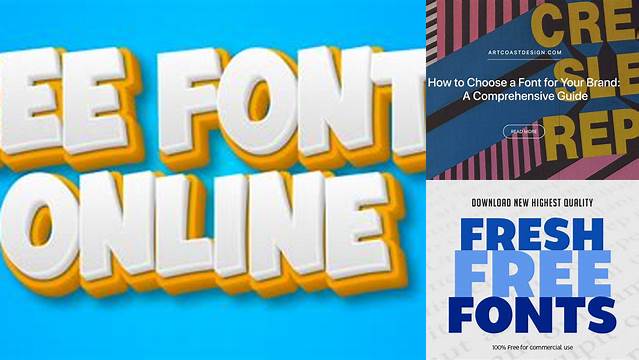
Free Font Design Online: Your Guide To Stunning Typography
Introduction: Unleashing Your Creativity with Free Font Design
Hey guys! Ever felt the urge to create something truly unique? In today's digital world, typography is key. Your choice of font can make or break a design, whether it's for a website, a logo, a presentation, or even just a cool social media post. But let's be real, professional fonts can be super expensive. That's where free font design comes in! You don't need to break the bank to access a world of stunning typography. This comprehensive guide dives deep into the realm of free font design online, exploring the tools, resources, and techniques you need to create captivating designs without spending a dime. We’ll cover everything from understanding font licensing to exploring online font creation tools and even mastering the art of font pairing. So, buckle up, and let’s embark on this exciting journey of typographic exploration together! This guide is packed with actionable tips, tricks, and resources that will empower you to take your designs to the next level. Whether you’re a seasoned designer or just starting out, there’s something here for everyone. We’ll explore the best websites for downloading free fonts, the most user-friendly online font editors, and even some secret hacks for finding hidden gems in the vast world of typography. Remember, choosing the right font is about more than just aesthetics; it's about conveying your message effectively and creating a memorable impression. So, let’s dive in and unlock the power of free font design!
Why Use Free Fonts? Exploring the Benefits
Okay, so why should you even bother with free fonts? Well, the obvious answer is cost. But the benefits extend far beyond just saving money. Using free fonts allows you to experiment with a wide variety of styles without the financial commitment. This means you can explore different typographic personalities and discover what works best for your projects. The world of free fonts is incredibly diverse, offering everything from elegant serifs to playful sans-serifs, handwritten scripts to futuristic display fonts. You're bound to find something that perfectly matches your creative vision. For small businesses and startups, free fonts can be a game-changer. They provide access to professional-quality typography without straining your budget. This is crucial when you're trying to establish a brand identity and create marketing materials that stand out. Plus, using free fonts can be a great way to support independent designers and type foundries who offer their work for free or under open-source licenses. It's a win-win situation! Another advantage of free fonts is the sheer abundance of options available. The internet is teeming with websites and resources offering thousands of free fonts, so you're sure to find the perfect typeface for your project. However, it's important to be mindful of licensing restrictions. While these fonts are free to download, some may have limitations on commercial use, distribution, or modification. We'll delve deeper into font licensing later on in this guide. Ultimately, the decision to use free fonts comes down to your specific needs and circumstances. But for most designers and creatives, they offer a valuable resource for creating stunning typography without breaking the bank. So, let's get started exploring the possibilities!
Top Websites for Free Font Downloads: Your Go-To Resources
Now that we've covered font licensing, let's dive into the exciting part: finding free fonts! The internet is a treasure trove of typographic resources, but it's important to know where to look to find high-quality fonts with appropriate licenses. Here are some of the top websites for free font downloads: Google Fonts: This is a goldmine of open-source fonts that are completely free for both personal and commercial use. Google Fonts offers a vast library of typefaces in various styles, and they're all easily accessible and embeddable in websites and applications. Plus, the Google Fonts interface is incredibly user-friendly, allowing you to filter fonts by category, style, language, and more. Font Squirrel: Font Squirrel is another fantastic resource for free fonts, known for its curated collection of high-quality typefaces. All fonts on Font Squirrel are available for commercial use, making it a reliable choice for designers and businesses. The website also offers a handy "Font Identifier" tool that helps you identify fonts from images. DaFont: DaFont is a popular website with a massive collection of free fonts, but it's crucial to pay attention to the licensing terms for each font. While many fonts on DaFont are free for personal use, some may require a commercial license. Always check the license information before downloading and using a font. UrbanFonts: UrbanFonts is similar to DaFont, offering a wide variety of free fonts with varying licensing terms. Again, it's essential to read the license agreement carefully before using any font from UrbanFonts. Creative Fabrica: Creative Fabrica offers a mix of free and premium fonts, but their "Freebies" section is a great place to find high-quality free fonts for both personal and commercial use. They also offer a subscription service that gives you access to their entire library of fonts and other design resources. These are just a few of the many websites where you can find free fonts. When browsing these resources, always remember to check the licensing terms and ensure that the font is suitable for your intended use. In the next section, we'll explore some online tools that allow you to create your own unique fonts!
Online Font Creation Tools: Design Your Own Typography
Want to take your font game to the next level? Why not try creating your own fonts? It might sound intimidating, but there are several user-friendly online tools that make font design accessible to everyone. These tools empower you to unleash your creativity and craft unique typefaces that perfectly reflect your personal style or brand identity. One popular option is Calligraphr. Calligraphr allows you to create a font from your own handwriting. Simply print out a template, fill it in with your characters, scan it back in, and upload it to Calligraphr. The tool will then convert your handwriting into a usable font file. This is a fantastic way to create a personalized font for invitations, stationery, or branding materials. Another great online font editor is BirdFont. BirdFont is a free and open-source font editor that's available for Windows, Mac, and Linux. It offers a wide range of features for creating and editing fonts, including Bézier curves, hinting, and OpenType features. BirdFont is a powerful tool for more advanced font design, but it's also relatively easy to learn for beginners. If you're looking for a simpler online font editor, FontStruct is a great option. FontStruct allows you to create fonts using geometric shapes. It's a fun and intuitive way to design pixel fonts or geometric typefaces. FontStruct also has a vibrant community where you can share your fonts and get feedback from other designers. These online font creation tools open up a world of possibilities for typographic experimentation. Whether you want to create a handwriting font, a geometric typeface, or a completely original design, these tools can help you bring your vision to life. Remember, font design takes time and practice, so don't be afraid to experiment and have fun! In the next section, we'll explore the art of font pairing and how to choose the perfect fonts for your projects.
Mastering Font Pairing: Tips for Harmonious Typography
Okay, you've got a bunch of awesome free fonts, but how do you combine them effectively? Font pairing is the art of selecting two or more fonts that work well together, creating a harmonious and visually appealing typographic composition. A well-executed font pairing can elevate your design and enhance the overall message you're trying to convey. A poorly chosen font pairing, on the other hand, can make your design look cluttered, unprofessional, or even jarring. So, how do you master the art of font pairing? Here are a few key tips: Contrast is key: Aim for contrast between your fonts. This can be achieved by pairing a serif font with a sans-serif font, a bold font with a light font, or a decorative font with a simple font. The contrast helps to create visual hierarchy and makes the design more interesting. Consider the mood: Different fonts evoke different emotions and personalities. Choose fonts that align with the overall mood and tone of your design. For example, a formal invitation might call for a classic serif font paired with an elegant script font, while a playful children's book might benefit from a whimsical sans-serif font paired with a quirky display font. Limit your choices: It's generally best to stick to two or three fonts in a single design. Too many fonts can create a cluttered and confusing look. Choose your fonts carefully and use them consistently throughout your project. Use font pairing resources: There are many online resources that can help you with font pairing, such as FontPair, Google Fonts Pairings, and Typewolf. These resources offer curated font pairings and inspiration for your projects. Experiment and trust your eye: Ultimately, the best way to learn font pairing is to experiment and develop your own eye for what works. Try different combinations and see what feels right. Don't be afraid to break the rules and create your own unique pairings. Font pairing is a crucial skill for any designer, and it's something that improves with practice. By following these tips and experimenting with different font combinations, you can create typographic masterpieces that will captivate your audience. In the final section, we'll summarize the key takeaways from this guide and provide some final tips for using free fonts effectively.
Conclusion: Unleash Your Typographic Potential with Free Fonts
Alright, guys, we've covered a lot in this comprehensive guide to free font design! We've explored the benefits of using free fonts, the importance of understanding font licensing, the top websites for downloading free fonts, online font creation tools, and the art of font pairing. Hopefully, you're feeling empowered and inspired to unleash your typographic potential! Remember, free fonts offer a fantastic resource for designers and creatives of all levels. They allow you to experiment with different styles, create stunning designs, and express your creativity without breaking the bank. However, it's crucial to be mindful of font licensing and ensure that you're using fonts legally and ethically. Always read the license agreement before using a font and contact the designer or foundry if you have any questions. When downloading free fonts, stick to reputable websites like Google Fonts and Font Squirrel, which offer high-quality fonts with clear licensing terms. If you're feeling adventurous, try creating your own fonts using online font creation tools like Calligraphr, BirdFont, or FontStruct. And don't forget the art of font pairing! Experiment with different combinations and develop your own eye for what works. Finally, remember that typography is a powerful tool for communication and expression. Choose your fonts carefully and use them to convey your message effectively and create a lasting impression. So, go forth and create some amazing designs with free fonts! The world of typography is at your fingertips. Embrace it, explore it, and have fun!